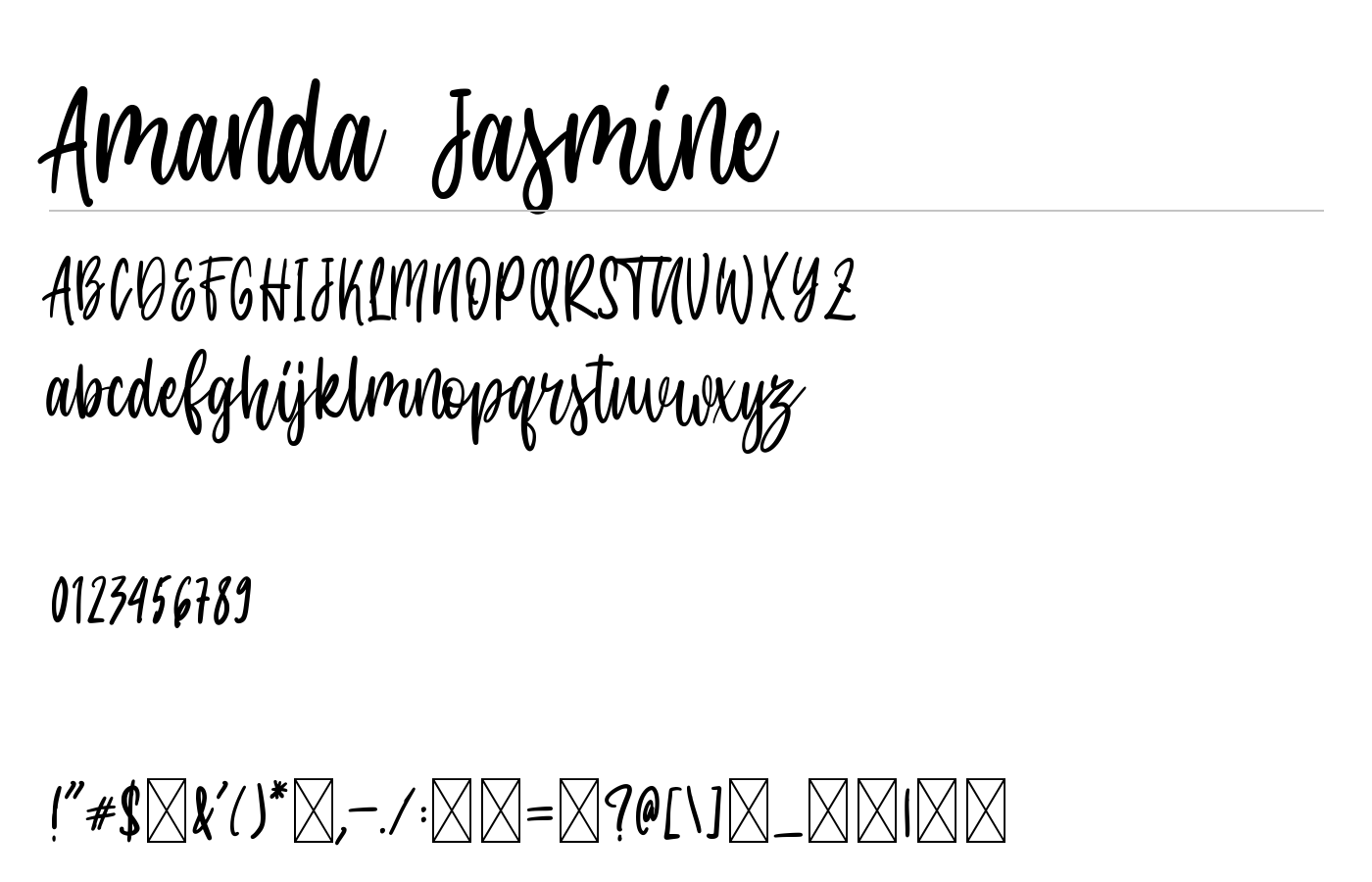
Amanda Jasmine is a playful and elegant handwritten script font characterized by its tall, slender letterforms and smooth, flowing strokes. With a casual yet refined style, it suits creative branding, invitations, and feminine designs that seek a personal and approachable touch. Its airy spacing and unique letter shapes make it ideal for headlines, logos, and packaging that want to convey charm and warmth.
Amanda Jasmine Font
About Amanda Jasmine Font